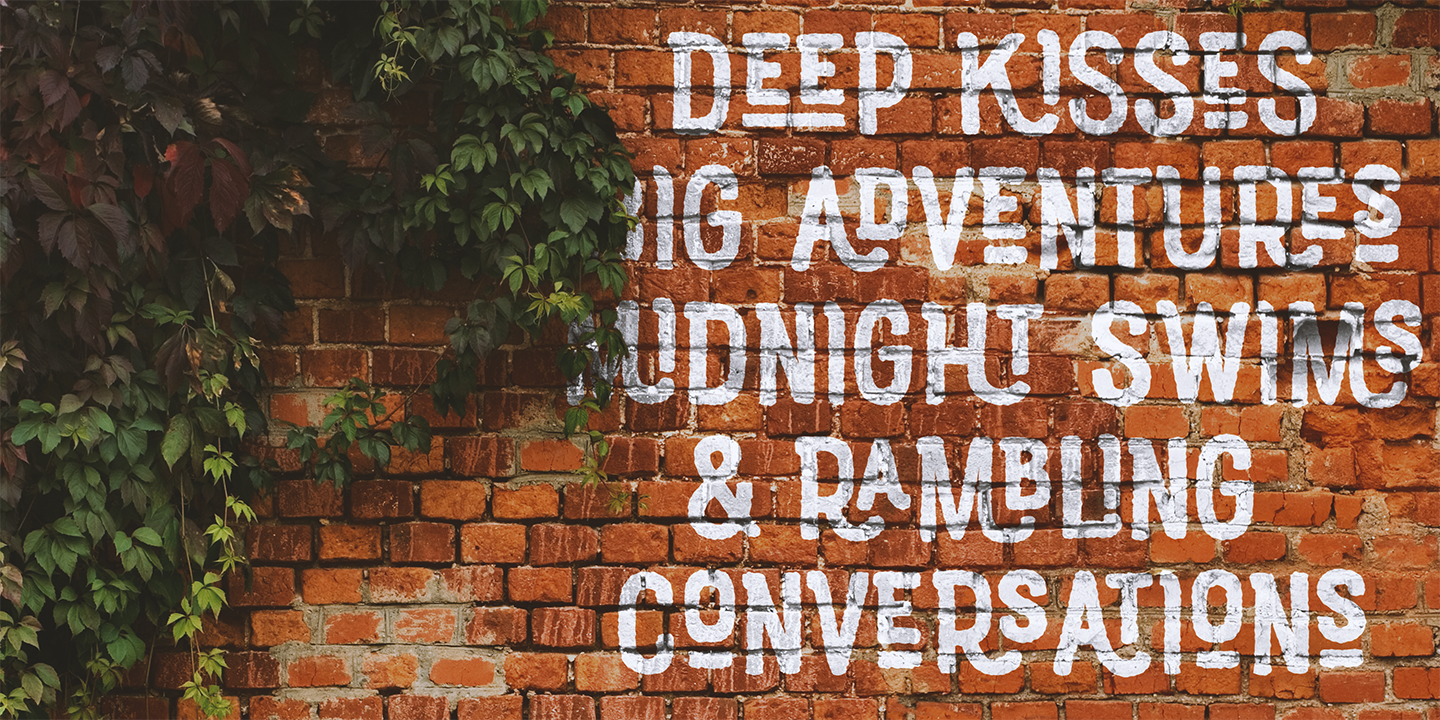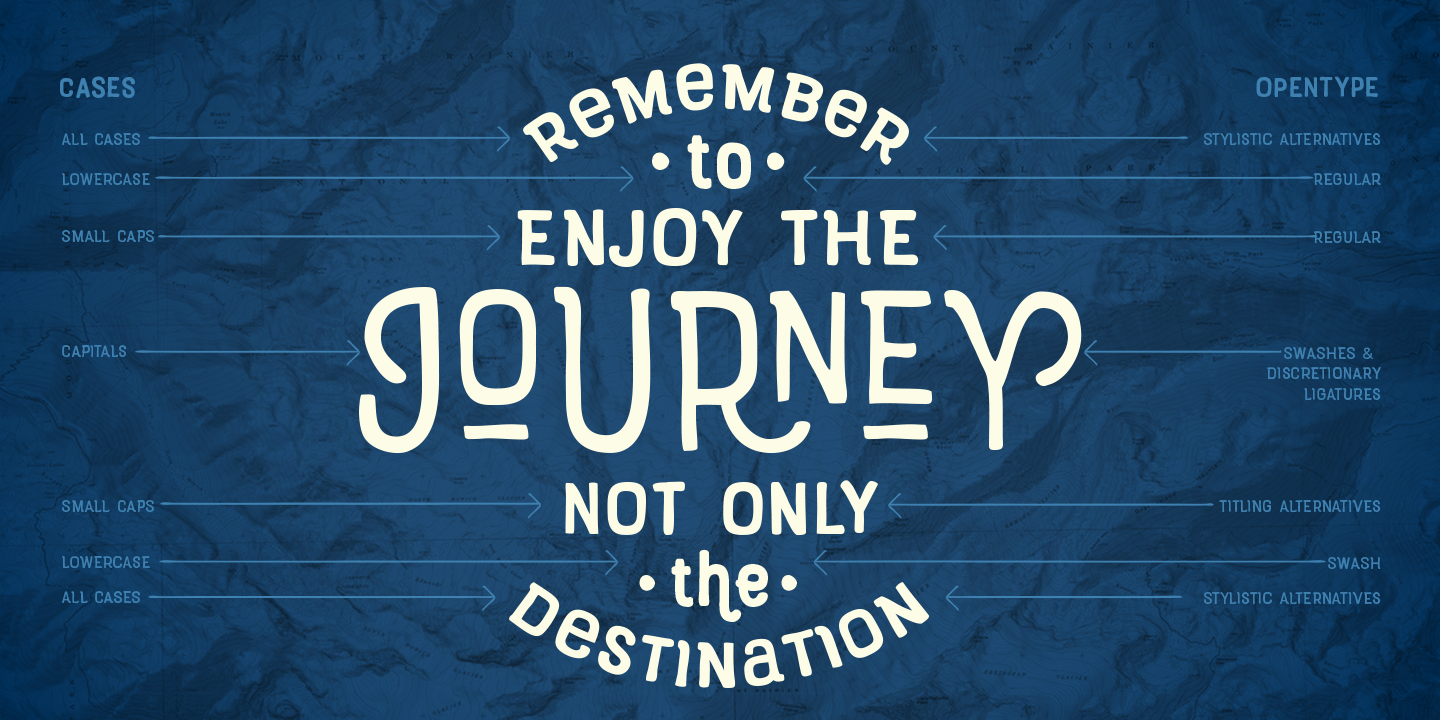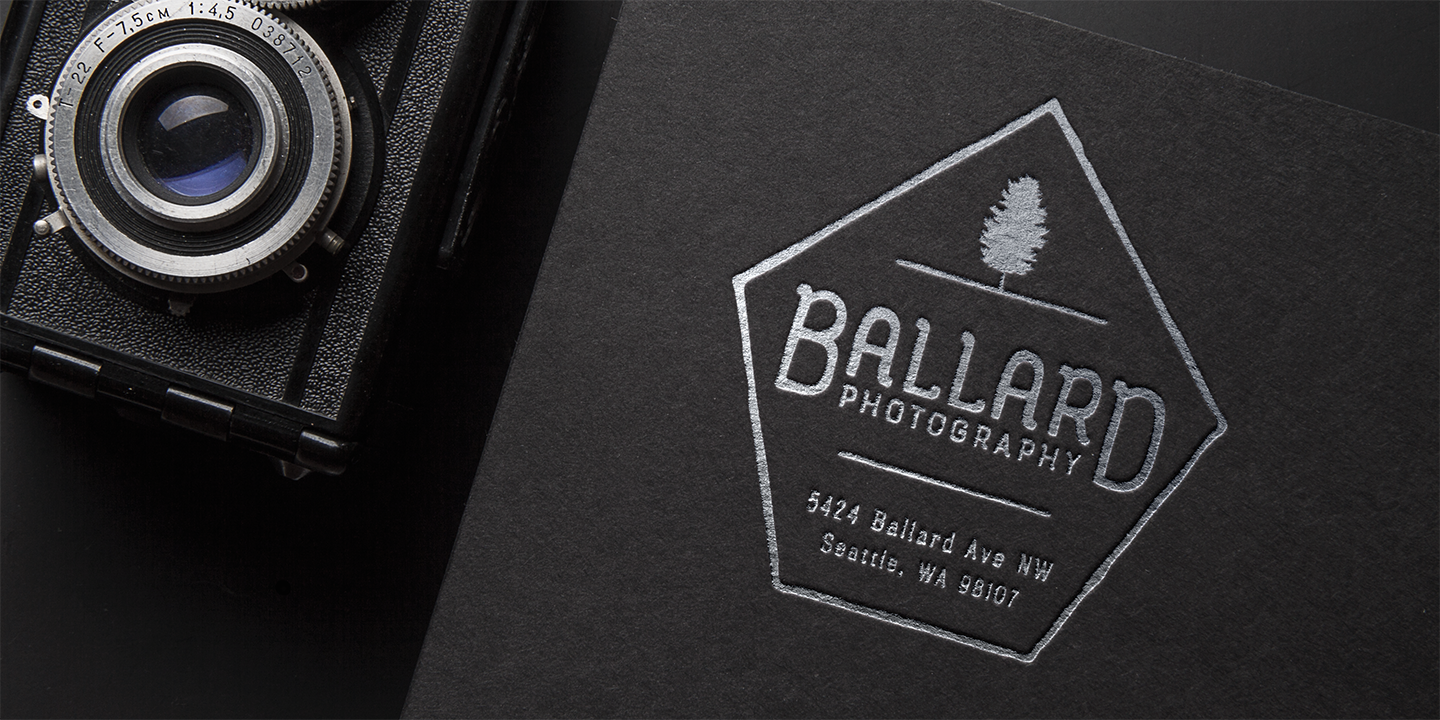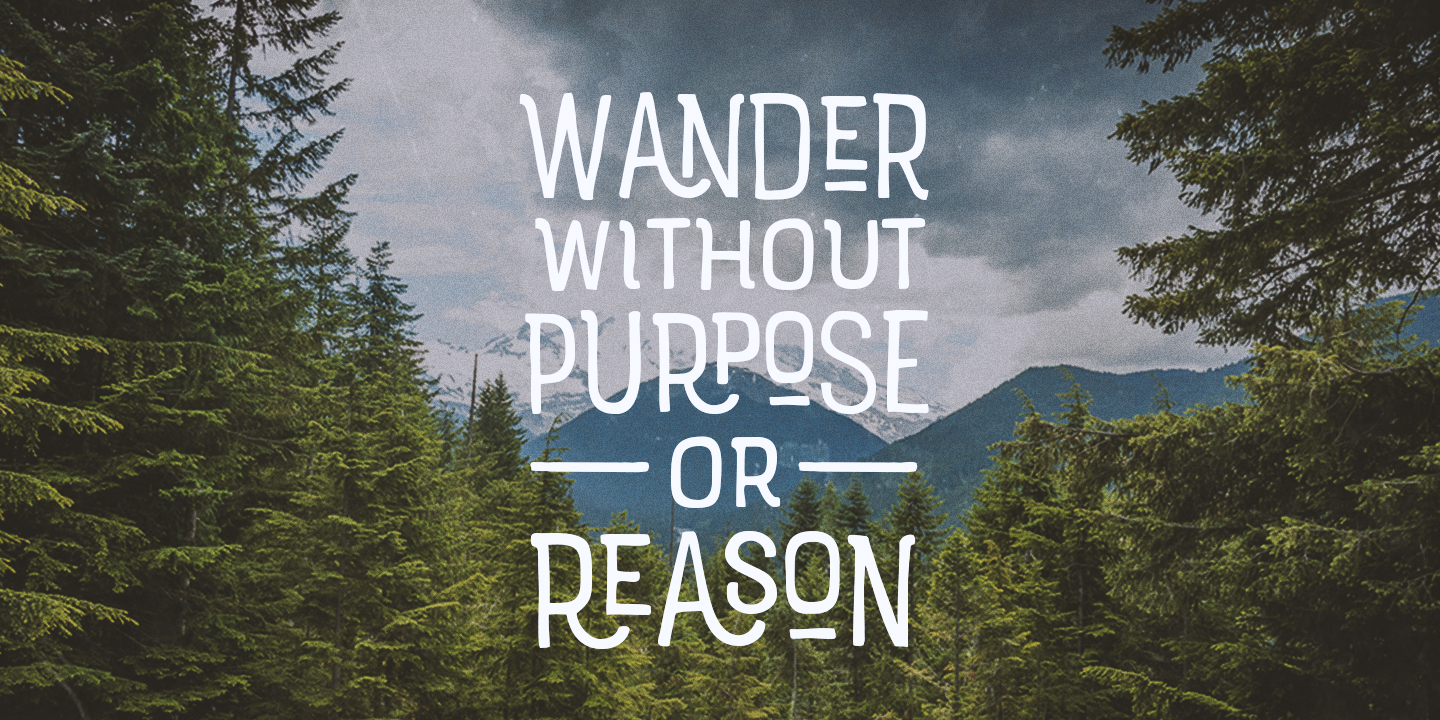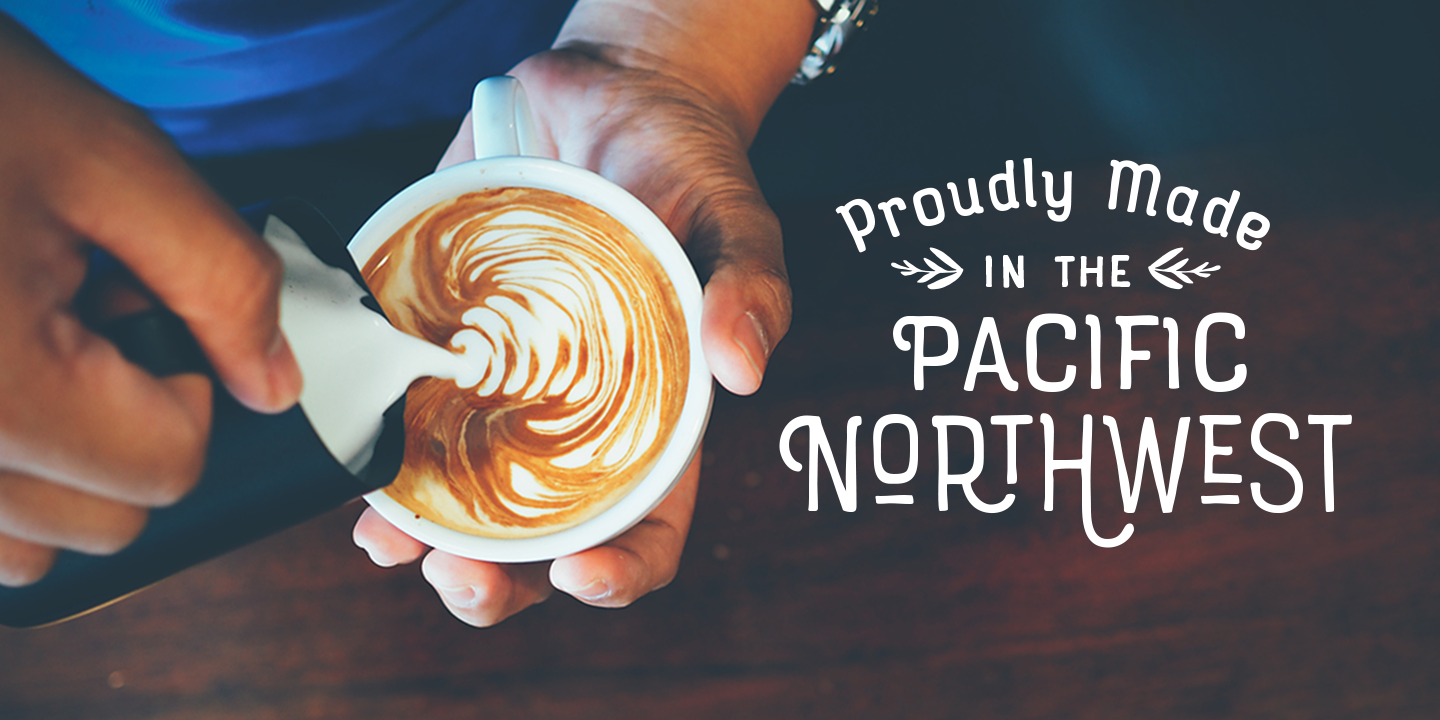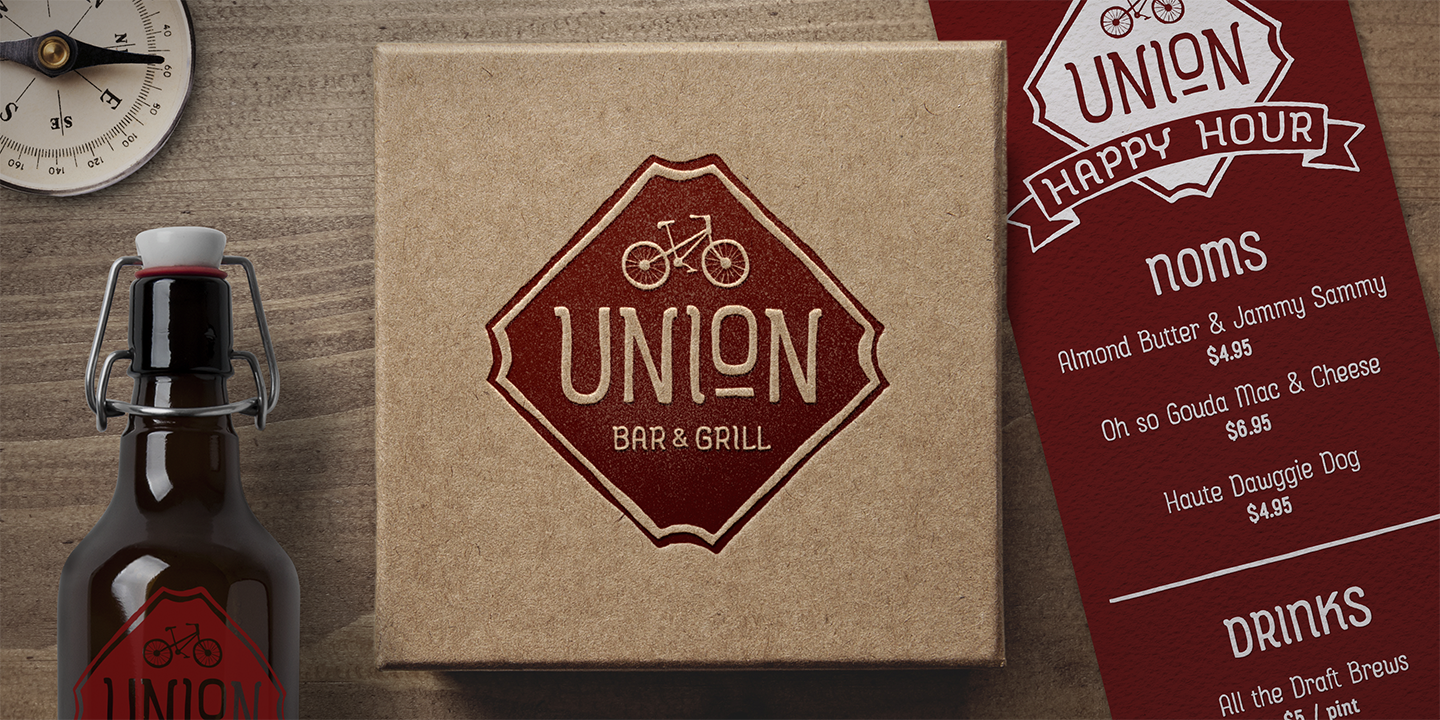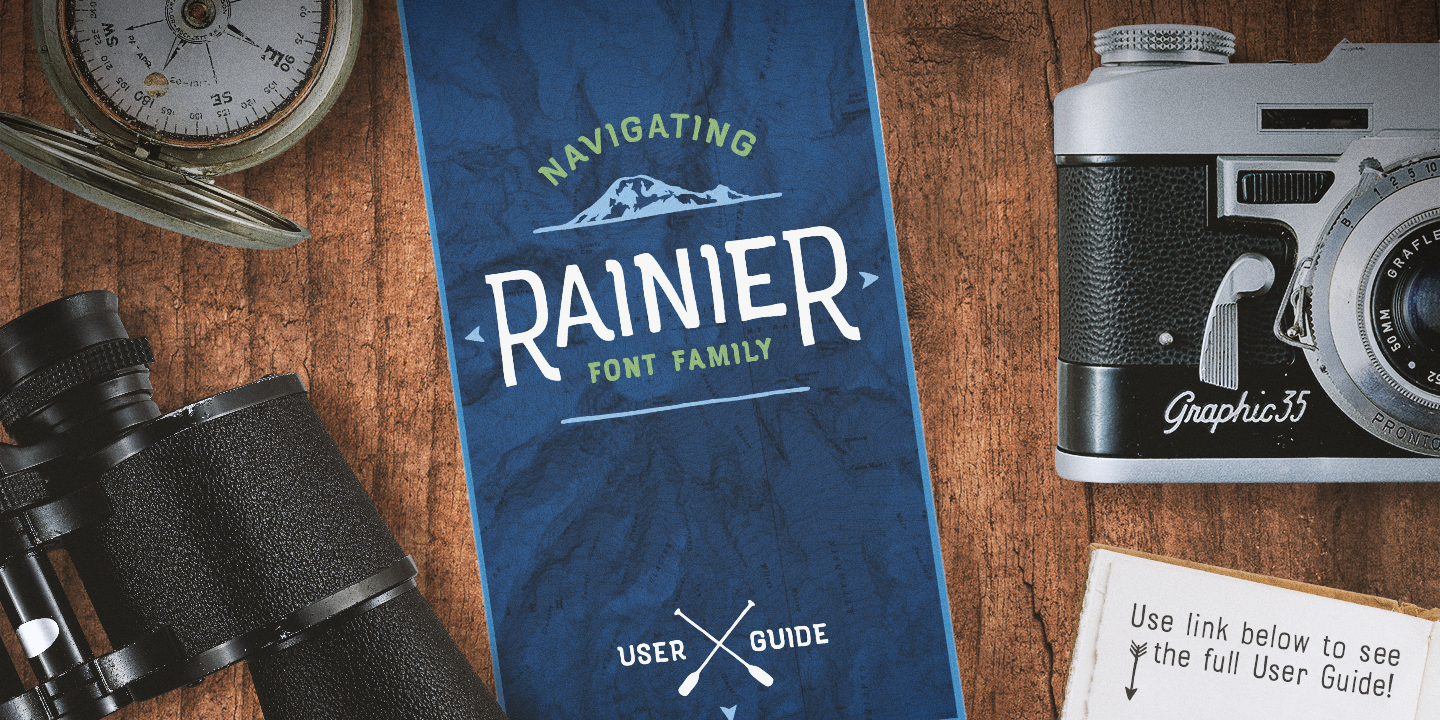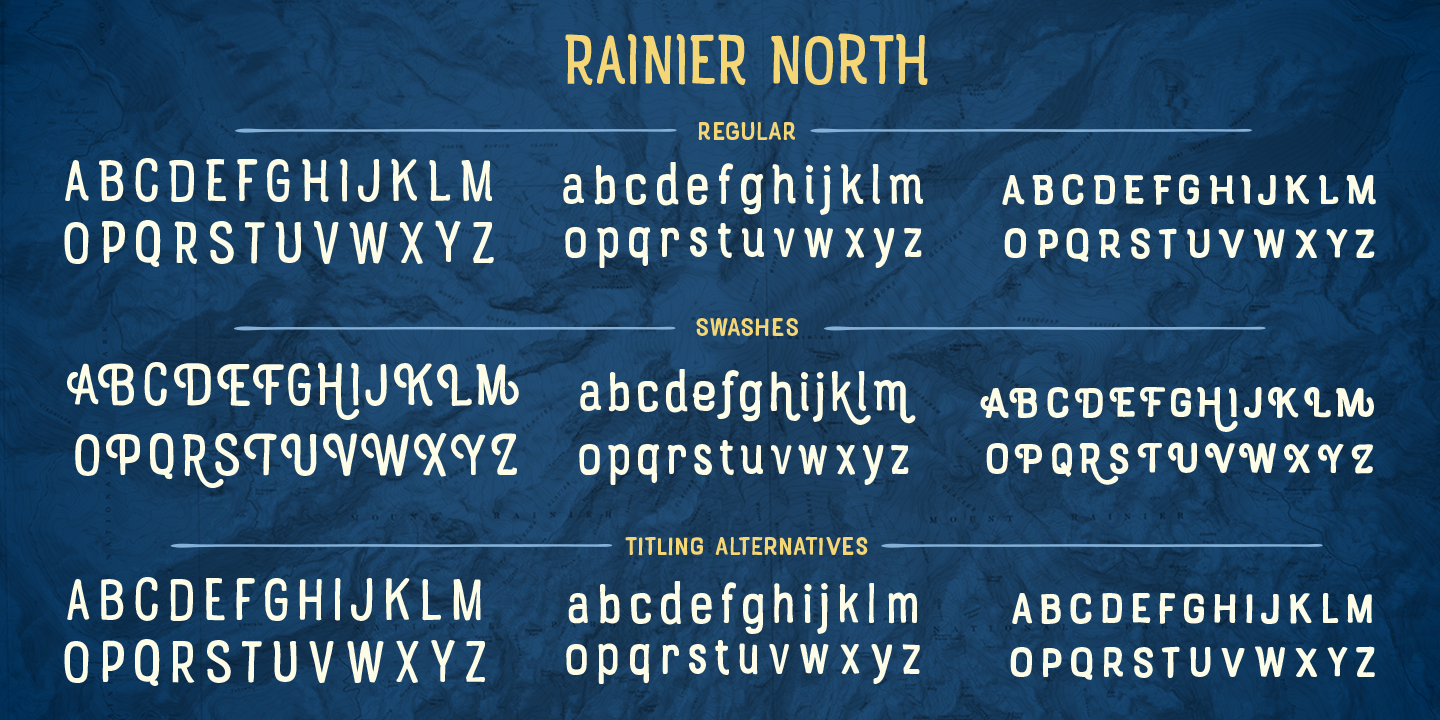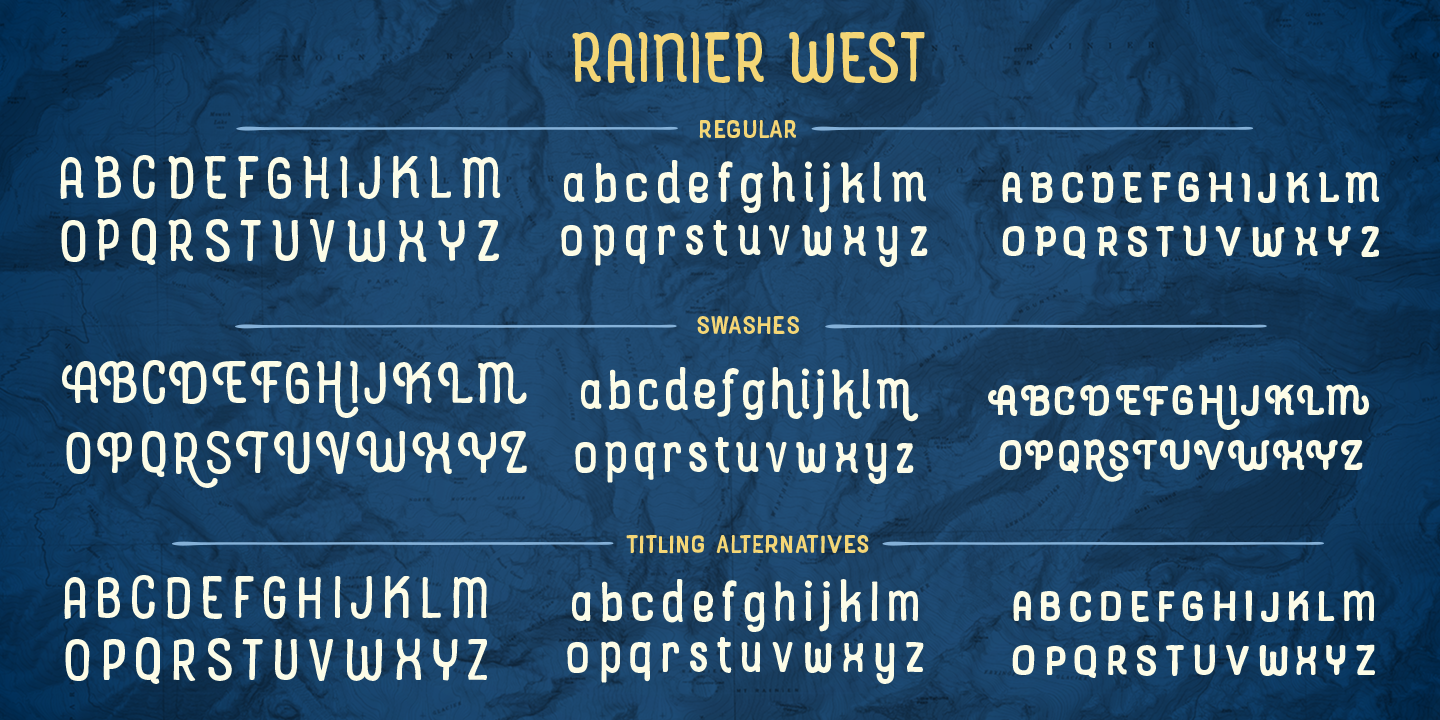
Two sub-families with unique styles - Rainier North and Rainier West
4 weights per family, broken down numerically - 100 (light), 300 (regular), 500 (bold), 700 (black)
In addition to the font, you get a set of awesomely rustic ornaments designed and drawn to go specifically with Rainier such as rustic Northwest Illustrations, banners & flags, frames, flourishes, lines & line breaks, and arrows!
Ligatures, Discretionary Ligatures, Small Caps, Alternates, Contextual Alternates, Swash